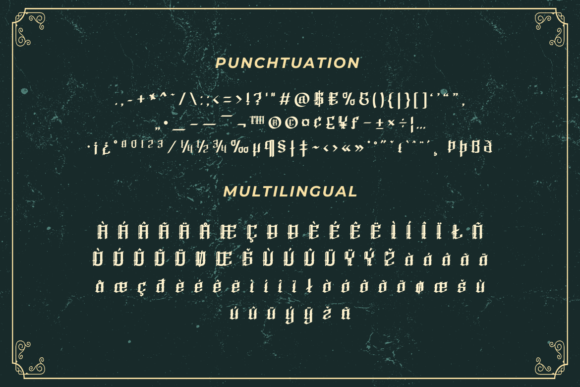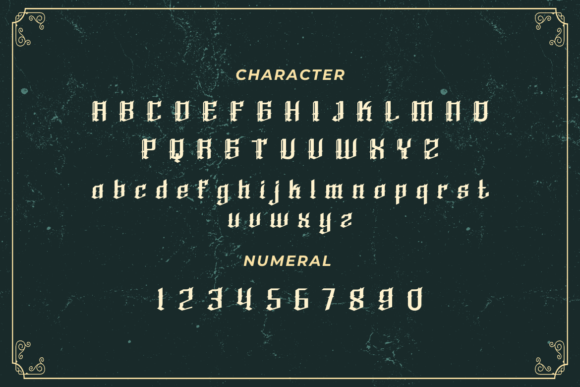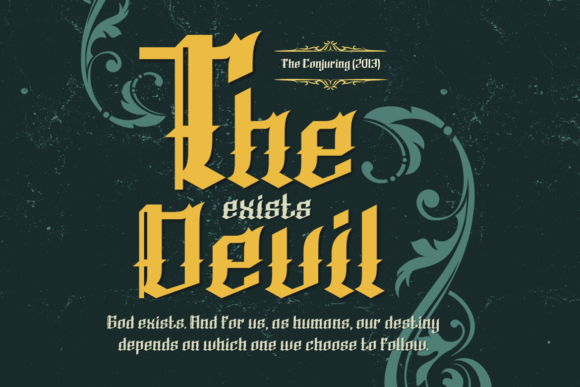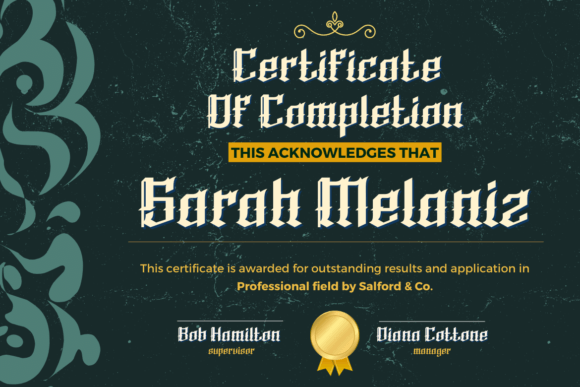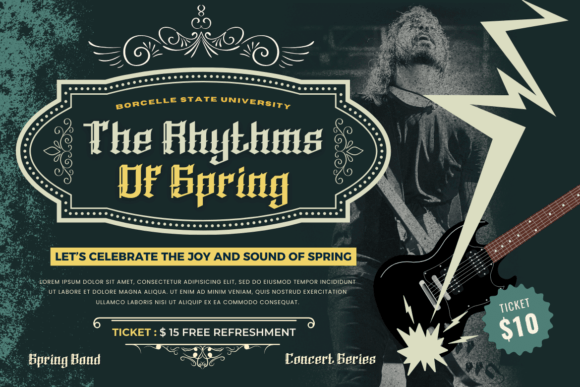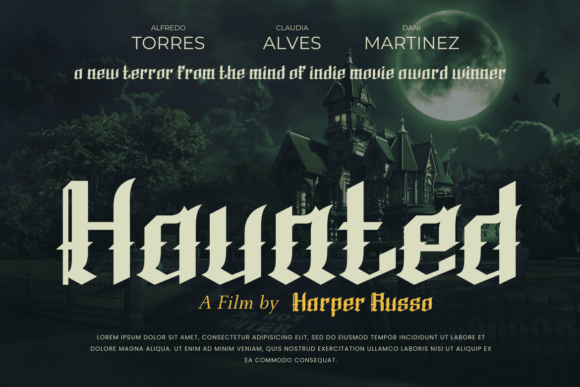
Introduction to Qukiha Font
As a designer, you’ve probably been there – staring at a blank canvas, trying to bring your creative vision to life. The perfect font can make all the difference, but finding the right one can be a daunting task. That’s where the Qukiha Font comes in – a stunning blackletter typeface that’s perfect for designers who want to add a touch of elegance and sophistication to their projects.
With its bold and daring typography, the Qukiha Font is a valuable resource for designers who want to take their creative projects to the next level. Whether you’re working on a high-quality design for a client or a personal project with a transparent background, this font is sure to impress. And the best part? It’s available for free download, making it an essential addition to any designer’s toolkit.
Key Features of Qukiha Font
- High-quality design resource ideal for creative projects, featuring a unique and modern aesthetic.
- Unique characteristics, such as its modern and sleek design, make it a valuable addition to any design project.
Honest Review: Qukiha Font
I recently had the chance to work with the Qukiha Font and I must say it’s a great addition to any designer’s toolkit. As a design resource, it offers a lot of creative possibilities for a wide range of projects.
One of the things that stands out about the Qukiha Font is its high quality and versatility. It’s perfect for any creative project that requires a clean and modern aesthetic. The font is available for free download, making it an excellent choice for designers on a budget.
Here are some of the things that work well with the Qukiha Font:
- ✨ High quality and crisp typography
- ✨ Versatile and suitable for various design projects
- ⚠️ Limited character set, which may not be suitable for complex designs
Overall, I’m impressed with the Qukiha Font and would highly recommend it to any designer looking for a high-quality, free design resource.
Qukiha Font: A High-Quality Design Resource
Common Use Cases for Qukiha Font
Qukiha Font is ideal for a variety of creative projects, including social media graphics, presentations, brochures, posters, and more. It’s also a great choice for designers who want to add a touch of sophistication and elegance to their designs.